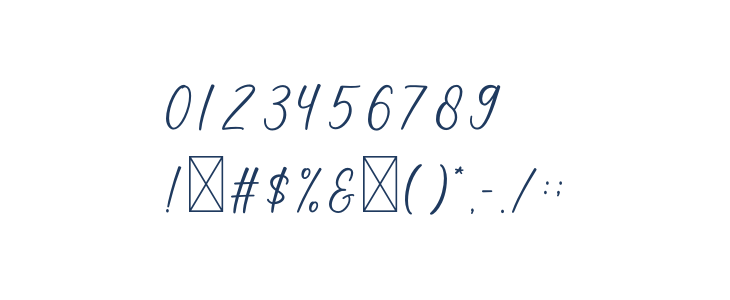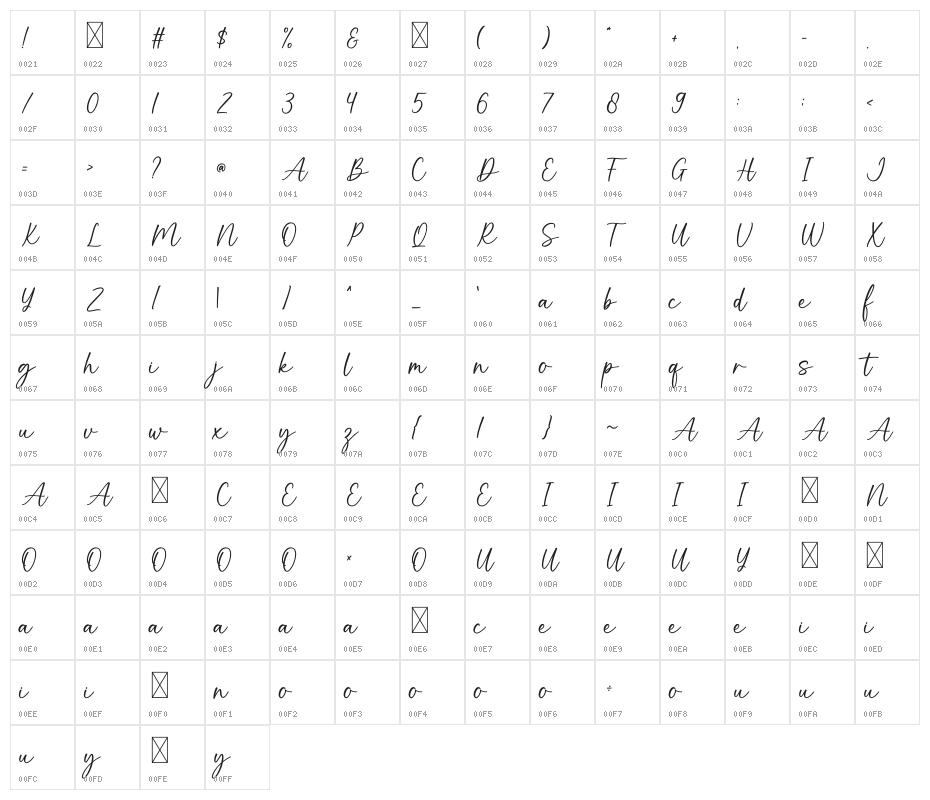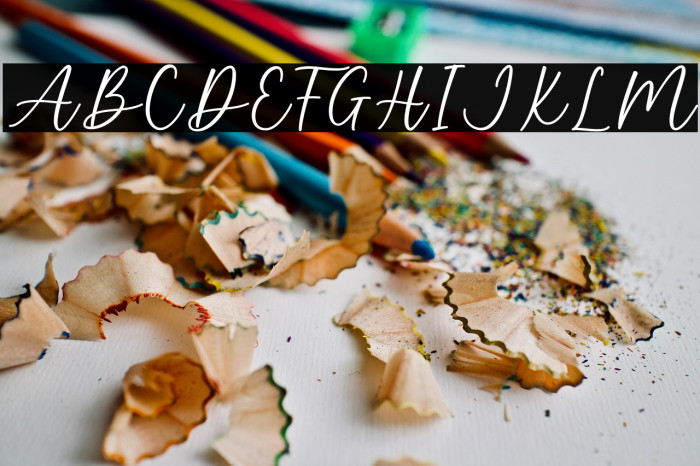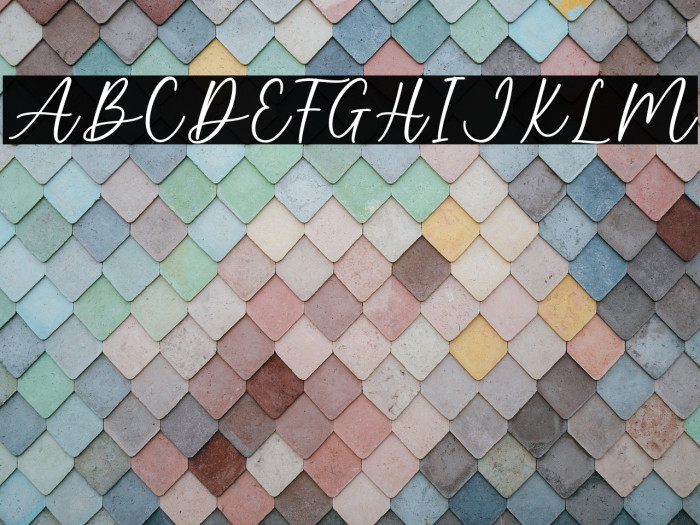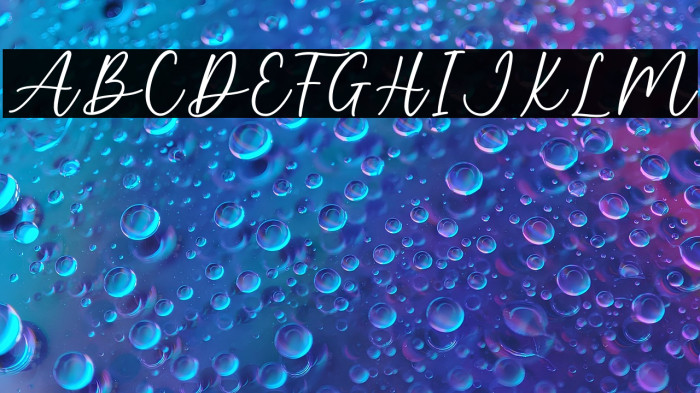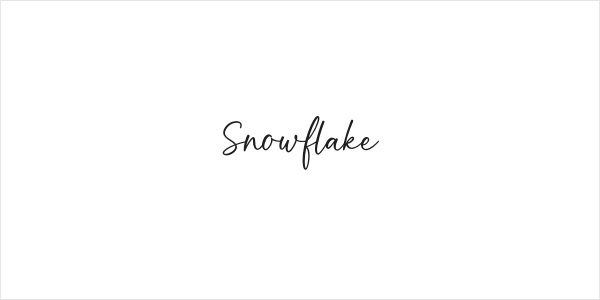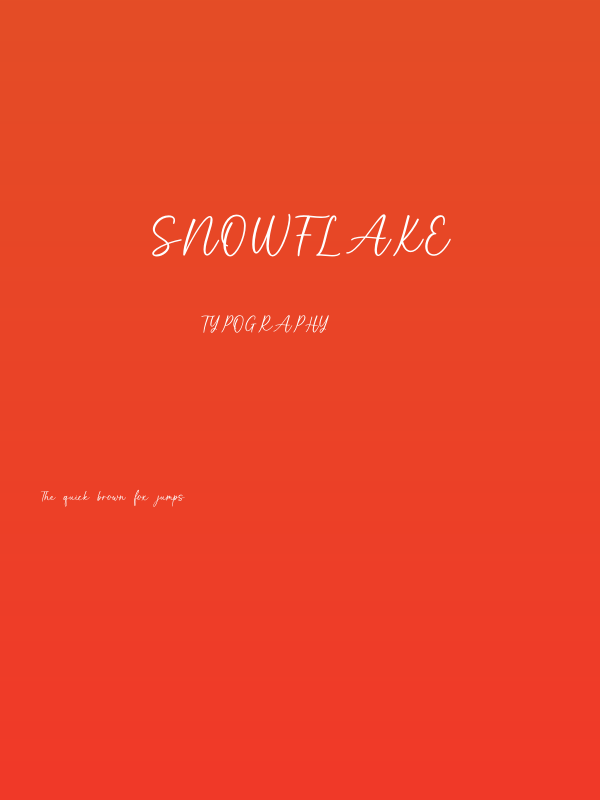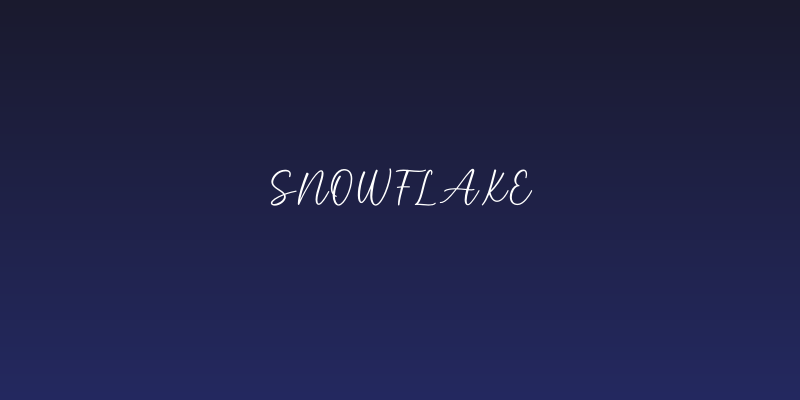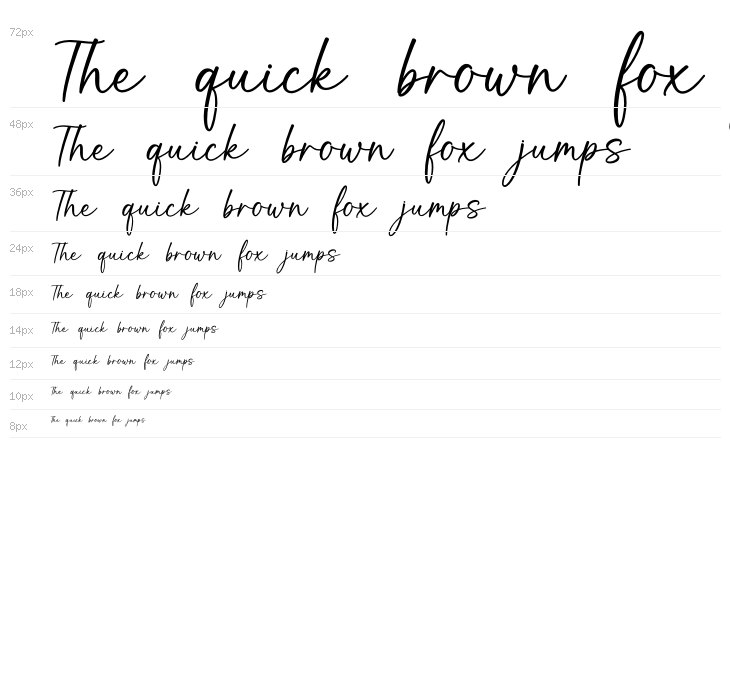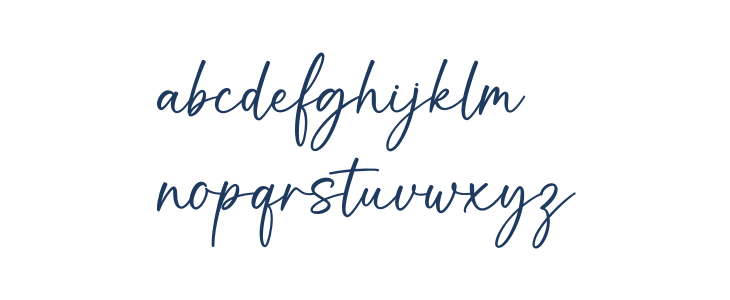
Snowflake Font
Snowflake Description
This font exhibits a flowing, cursive style with elegant, connected strokes that give it a handwritten appearance. The uppercase letters are slightly more upright, while the lowercase letters have a more pronounced slant, enhancing the script-like quality. The numerals are consistent with the overall style, maintaining the fluidity and grace of the letterforms. Special characters are integrated seamlessly, preserving the aesthetic continuity. The font's design is both sophisticated and approachable, making it suitable for a variety of creative applications.
| Use Case | Logos, Invitations, Artistic projects |
| Proposed Projects | Ideal for wedding invitations, greeting cards, personal branding, and artistic projects where a personal touch is desired. |